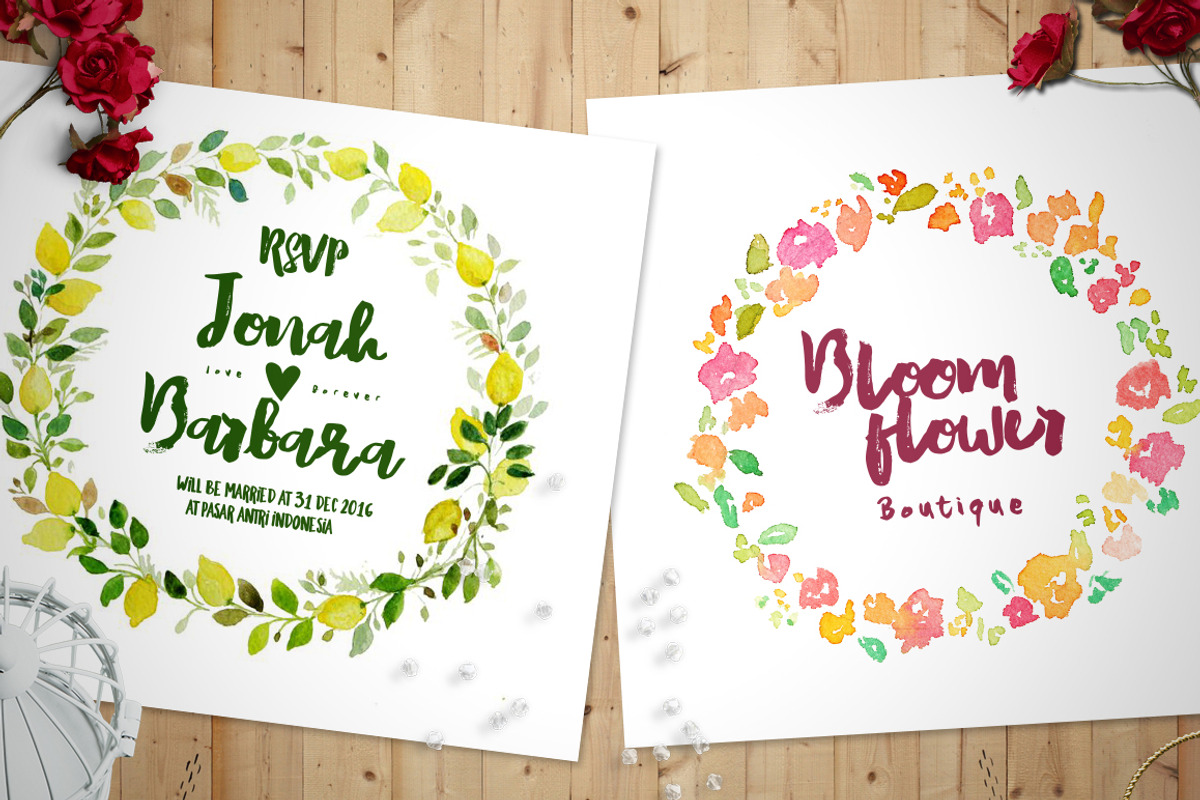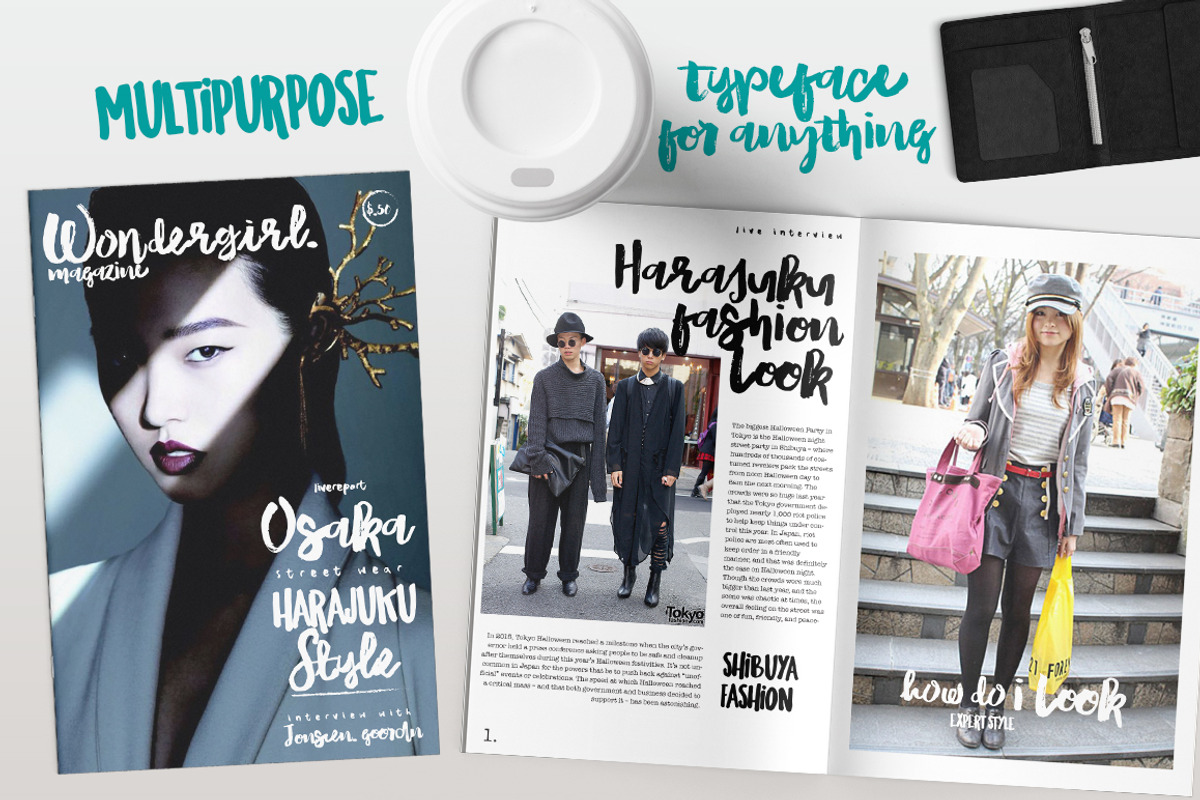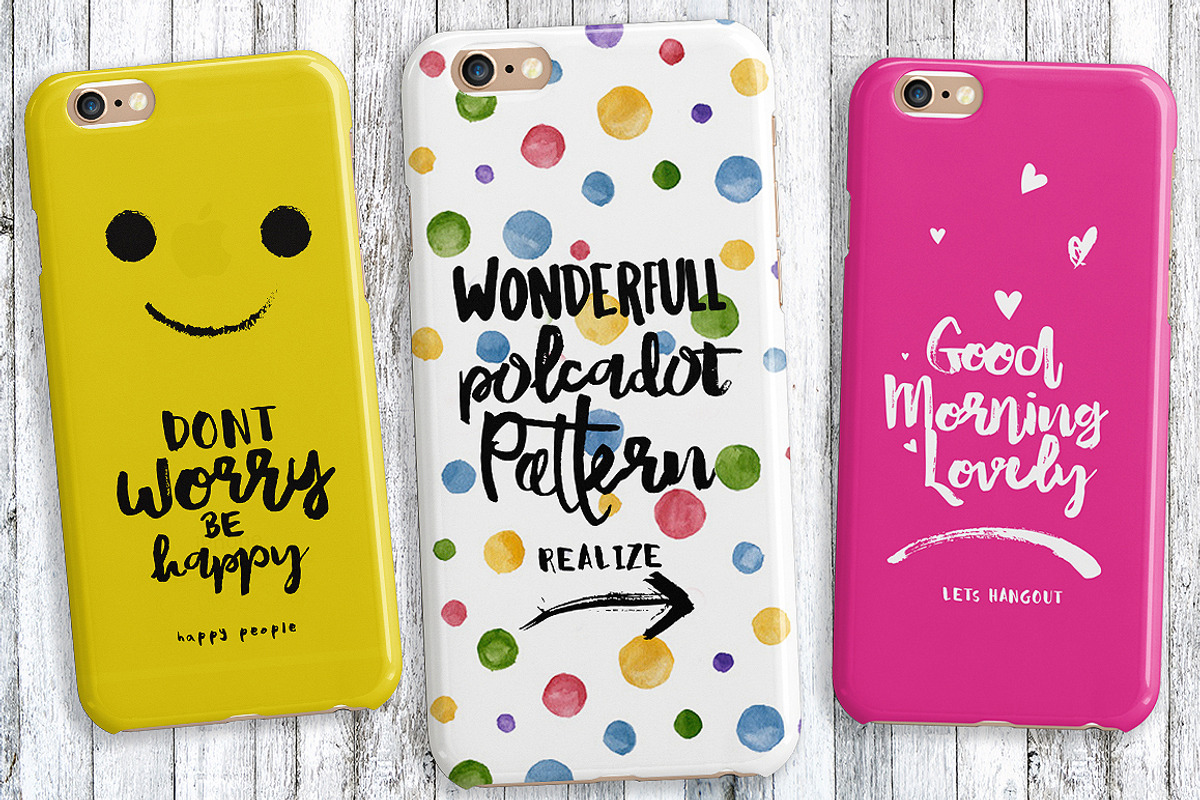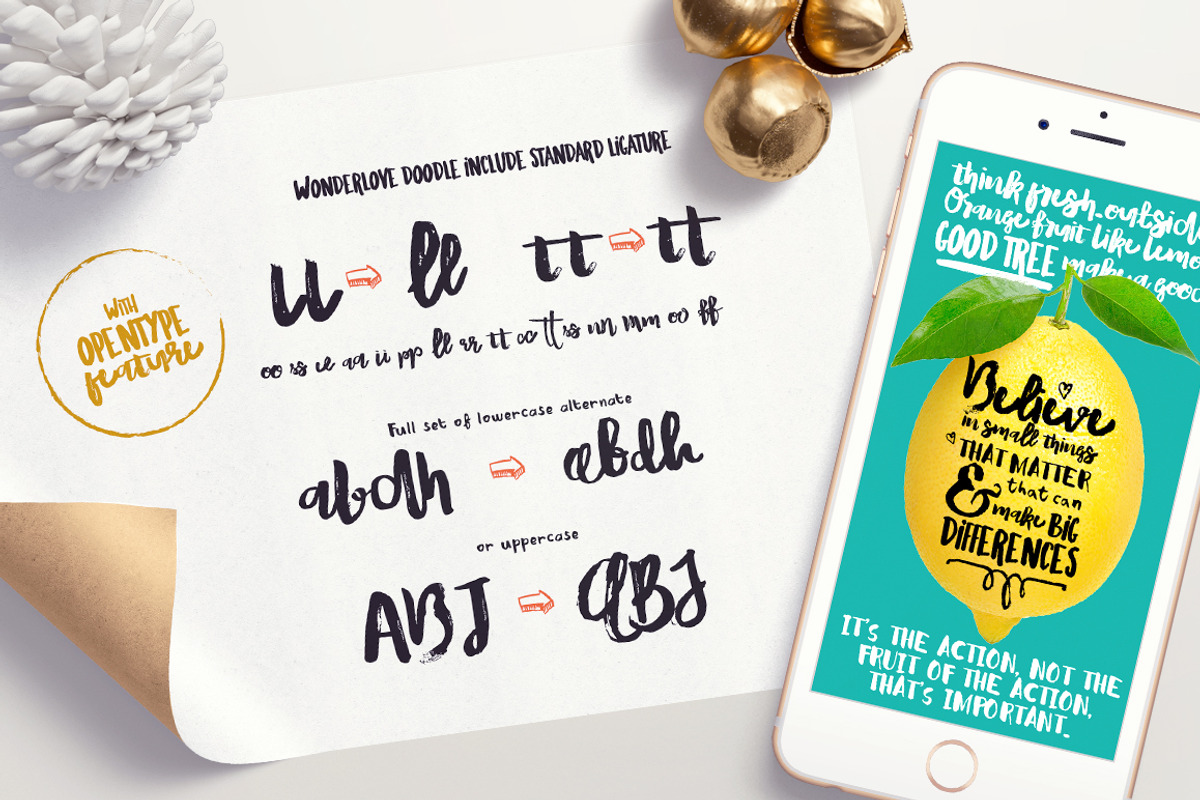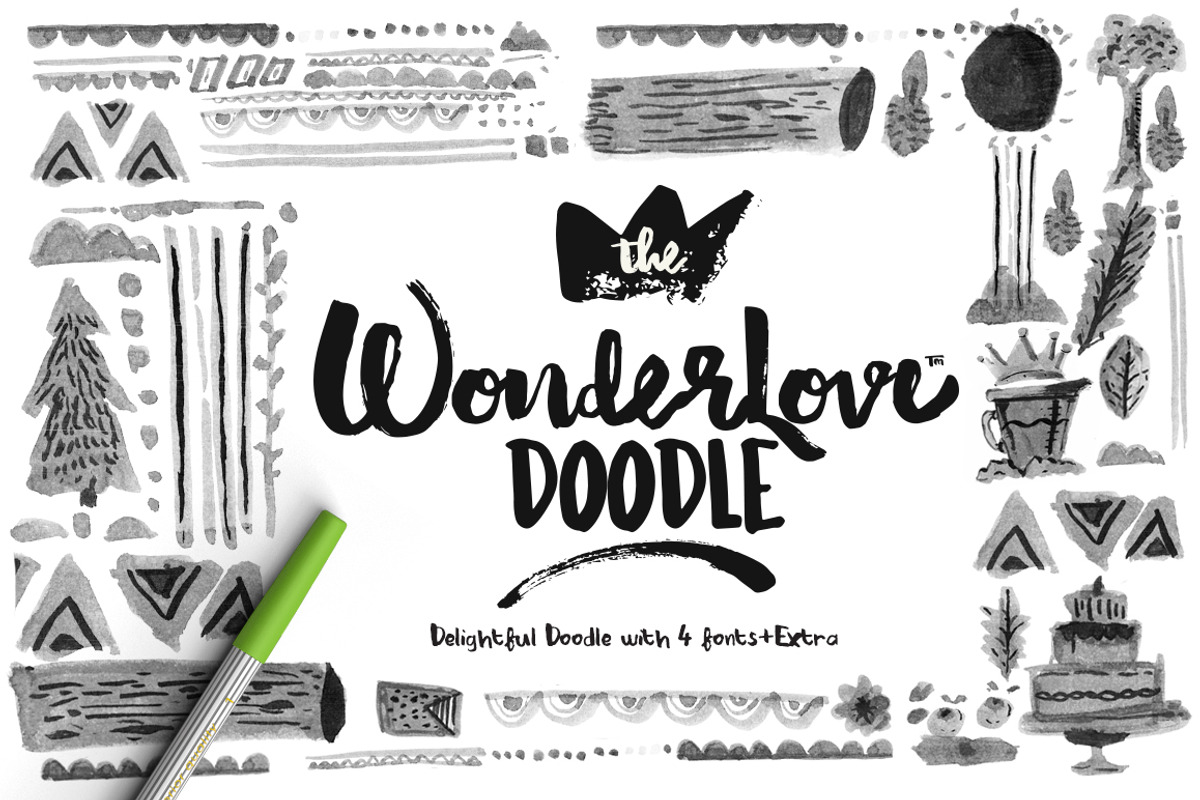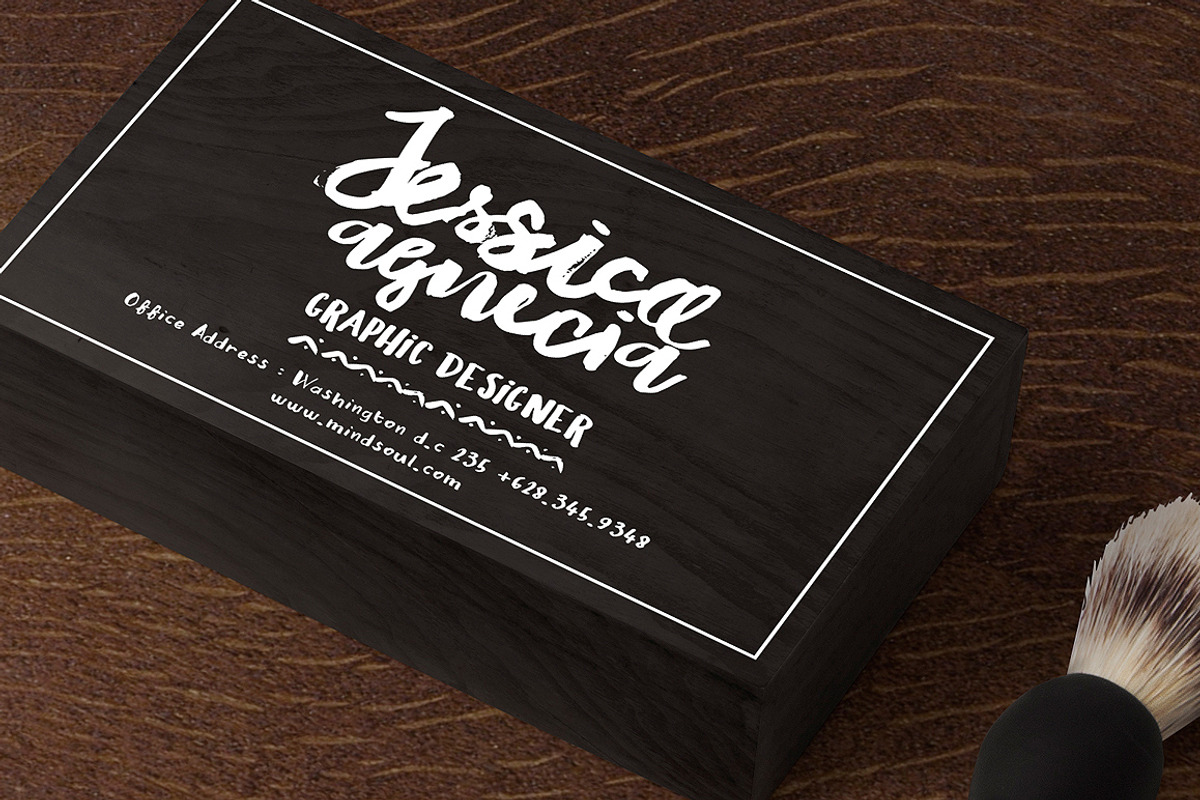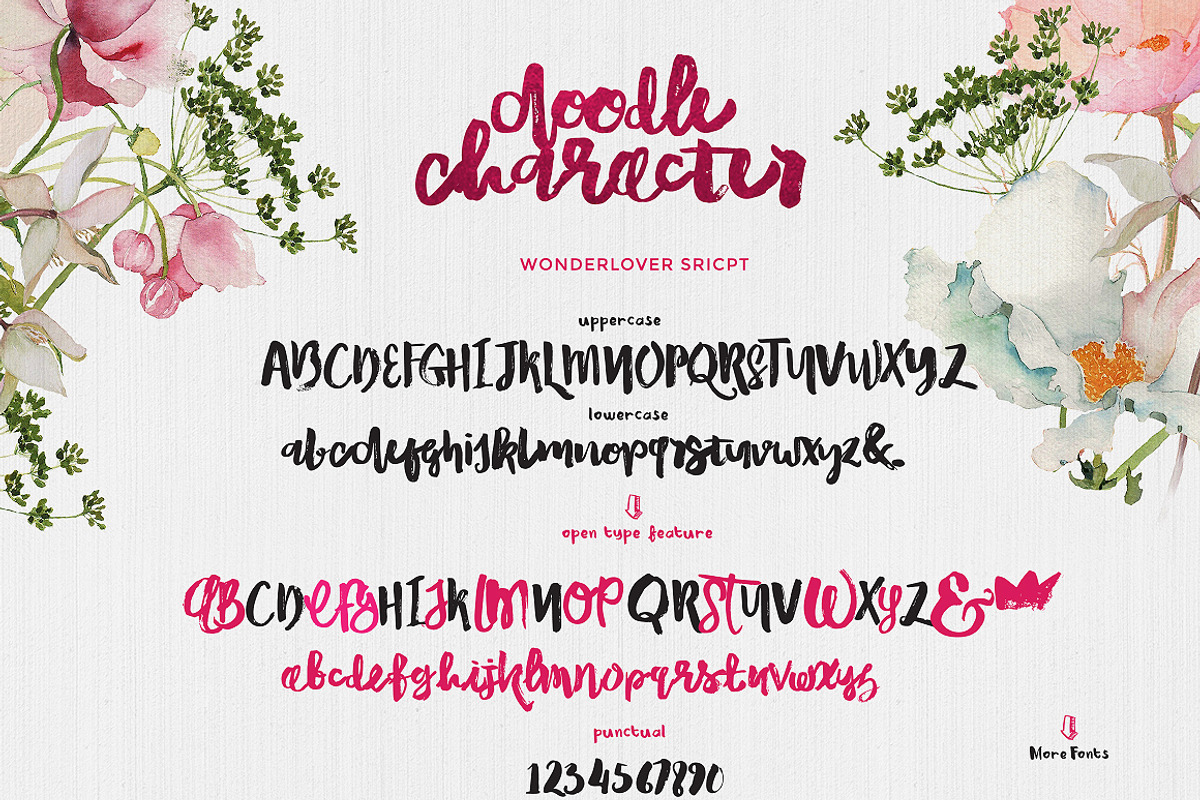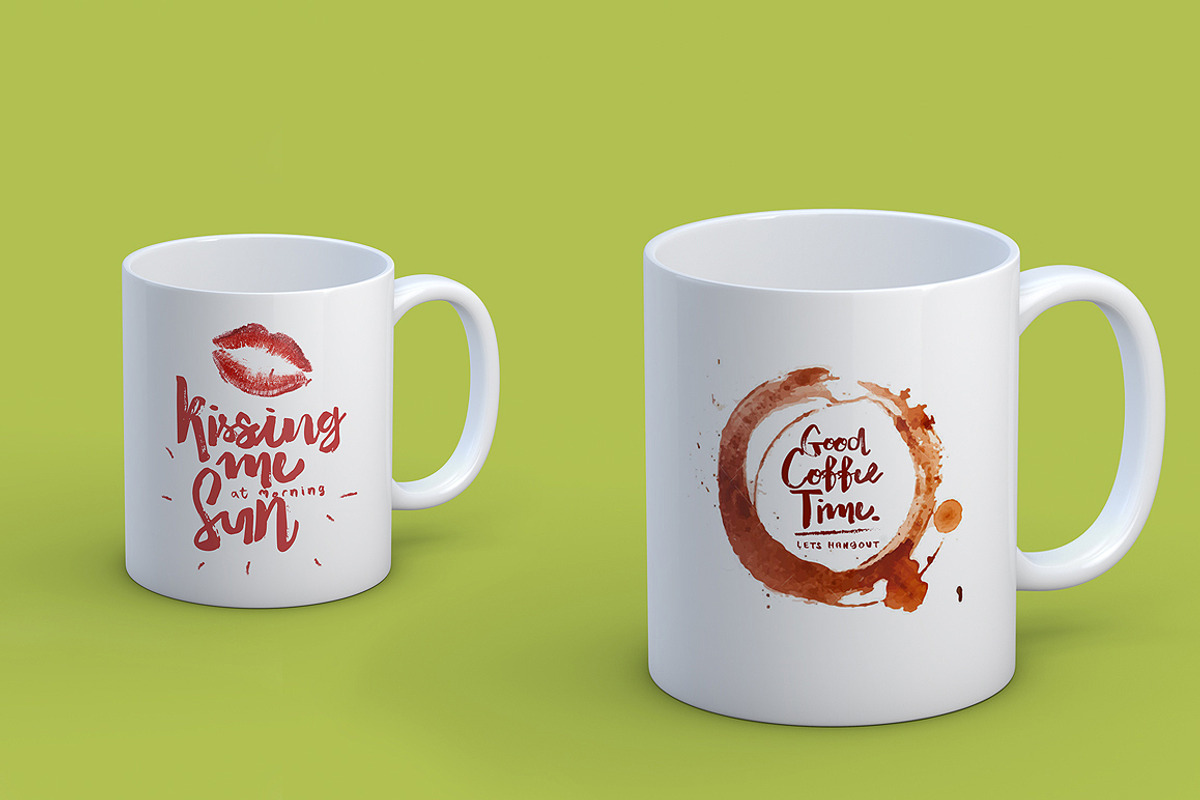
Wonderlove Doodle (4 Fonts)+Extra
Wonderlove Doodle (4 Fonts)+Extra by Fortunes Co is a font selected for branding, posters, packaging, typography.
- Create something different with some dancing ligatures and unformal alternates,(please see the feature open type in preview pages) with tota
- Wonder BigLove Regular
- WonderLover Regular
- Wonder Journey Regular
- wondersans Regular
Why Wonderlove Doodle (4 Fonts)+Extra is worth a look
Wonderlove Doodle (4 Fonts)+Extra by Fortunes Co fits naturally into Branding, posters, packaging, typography.